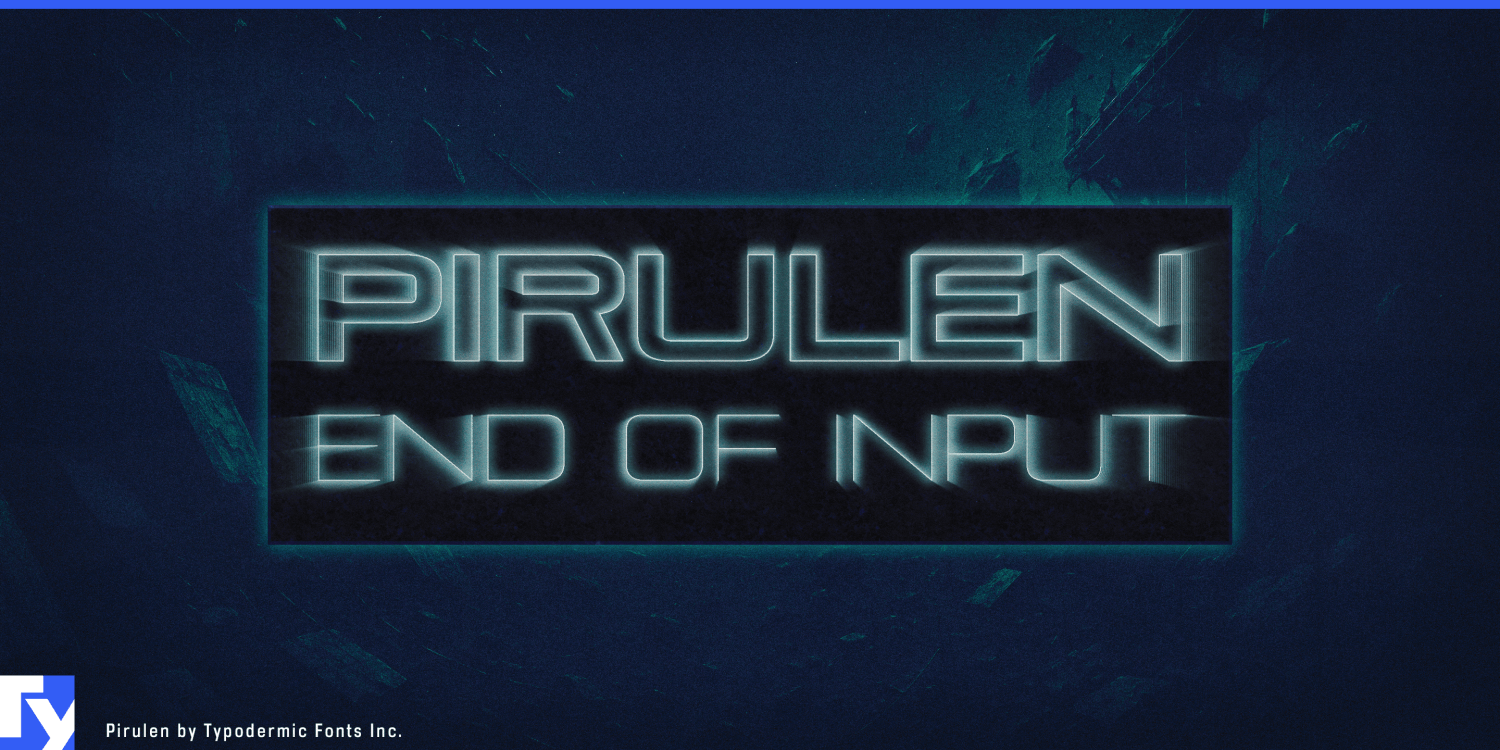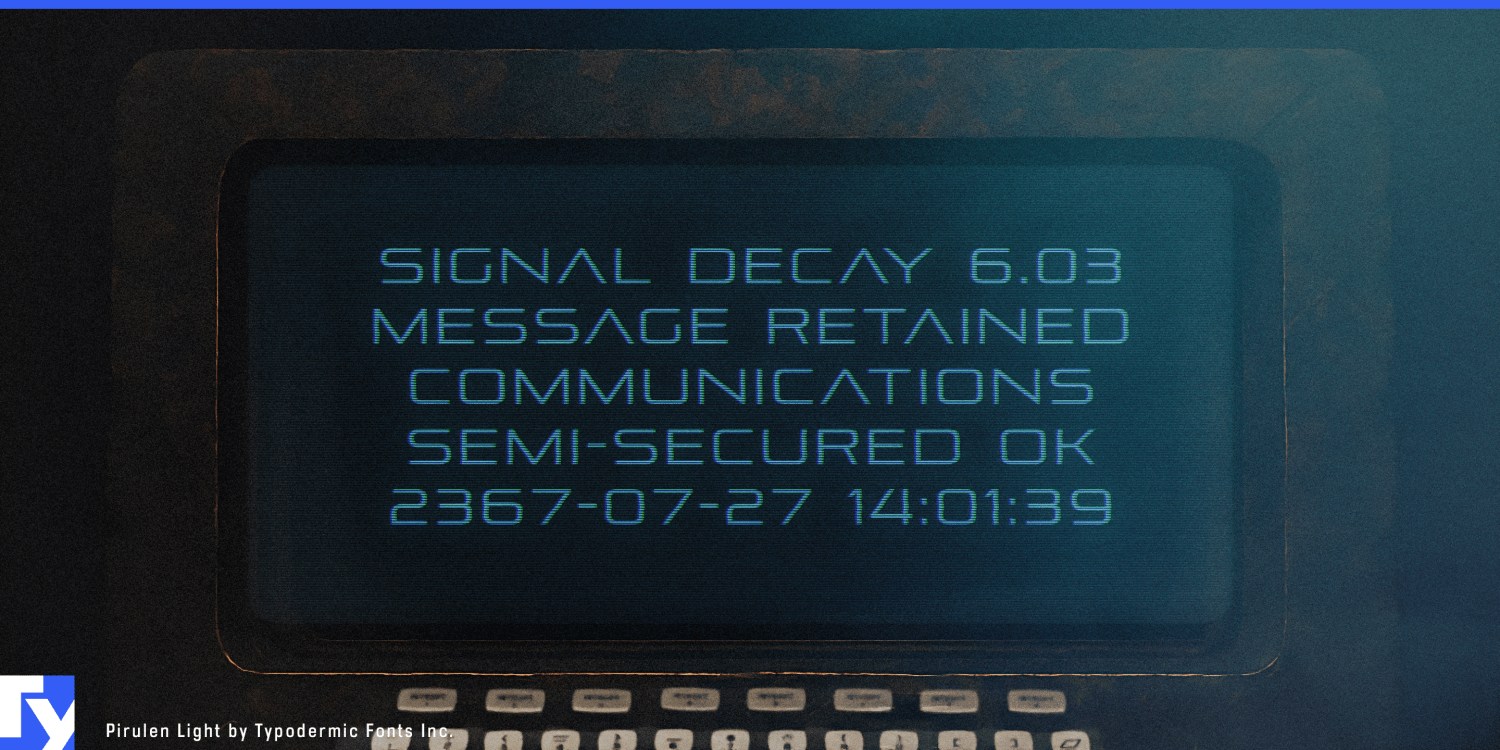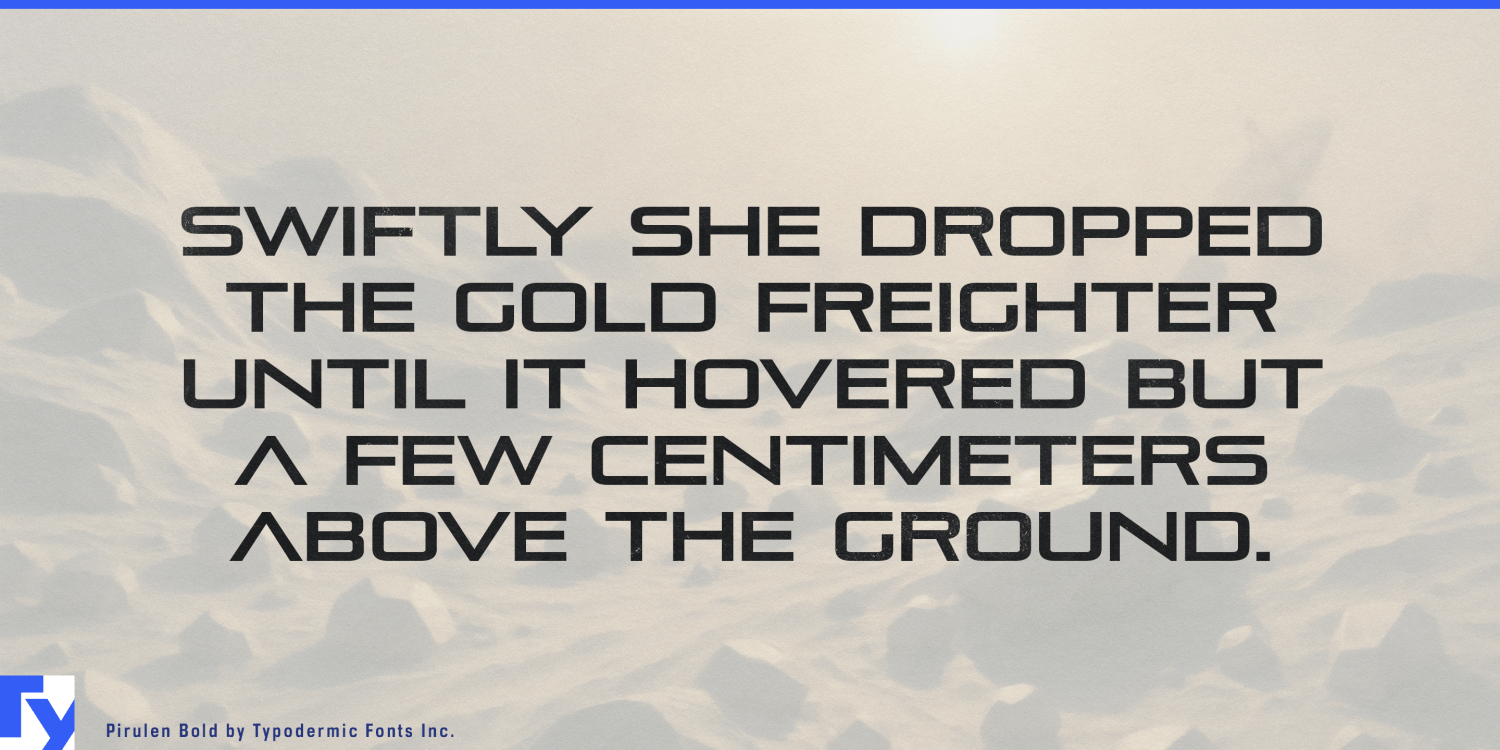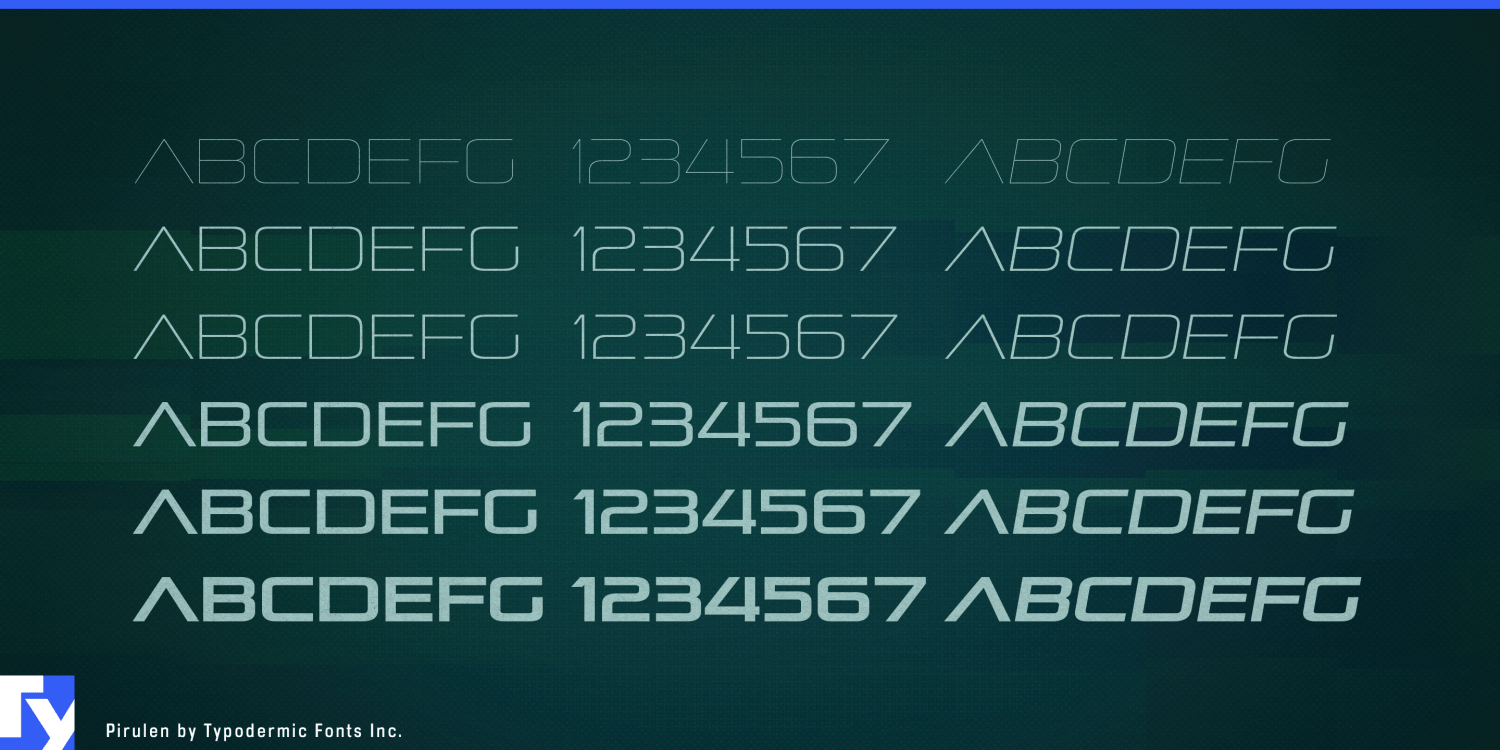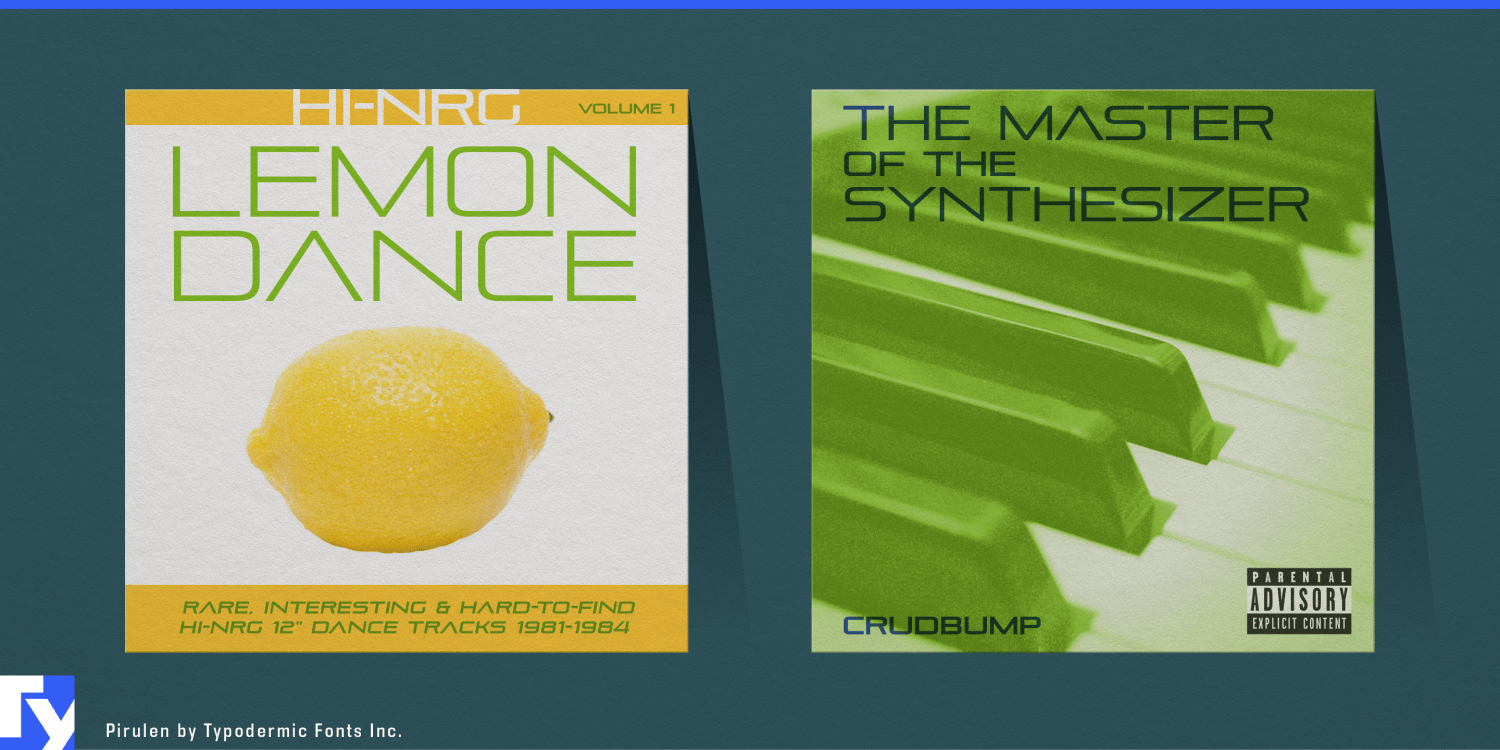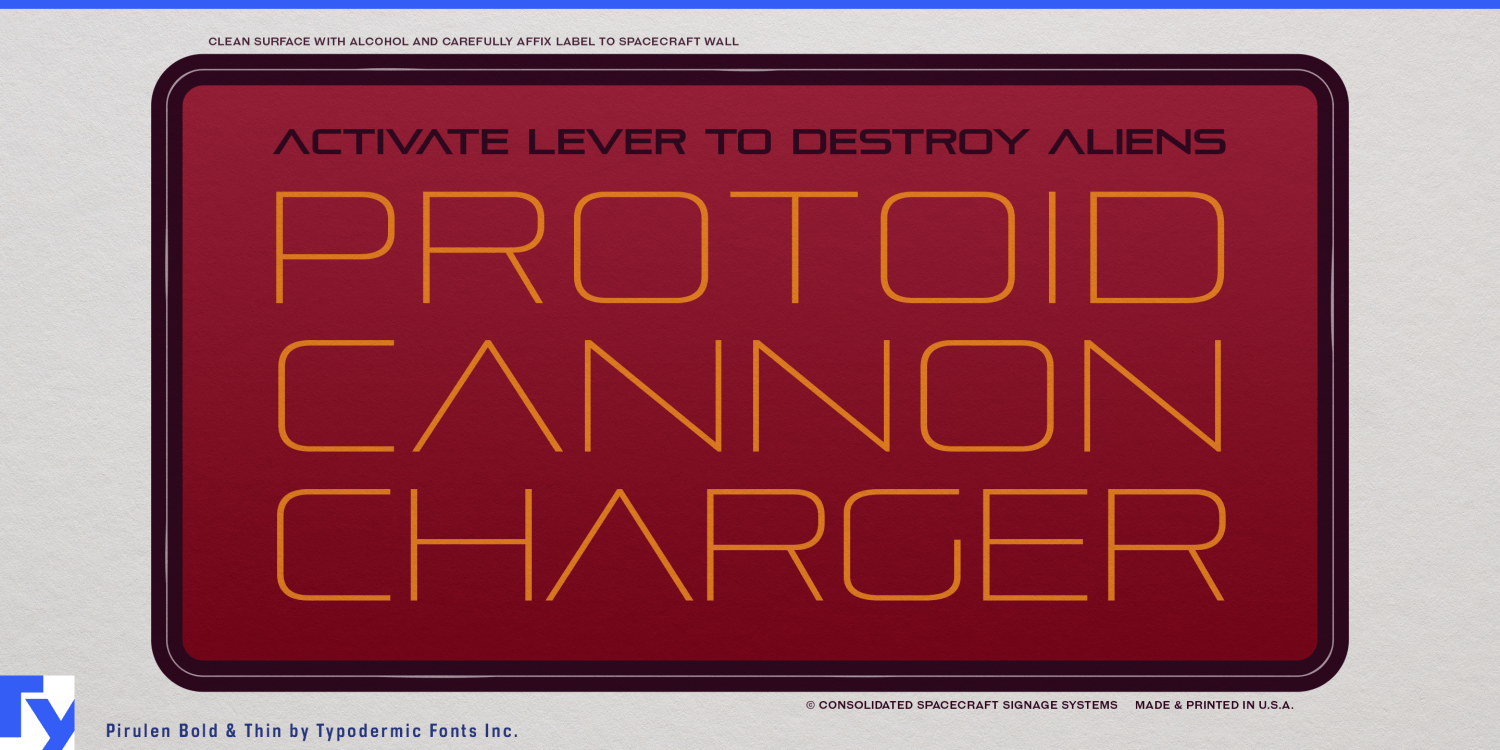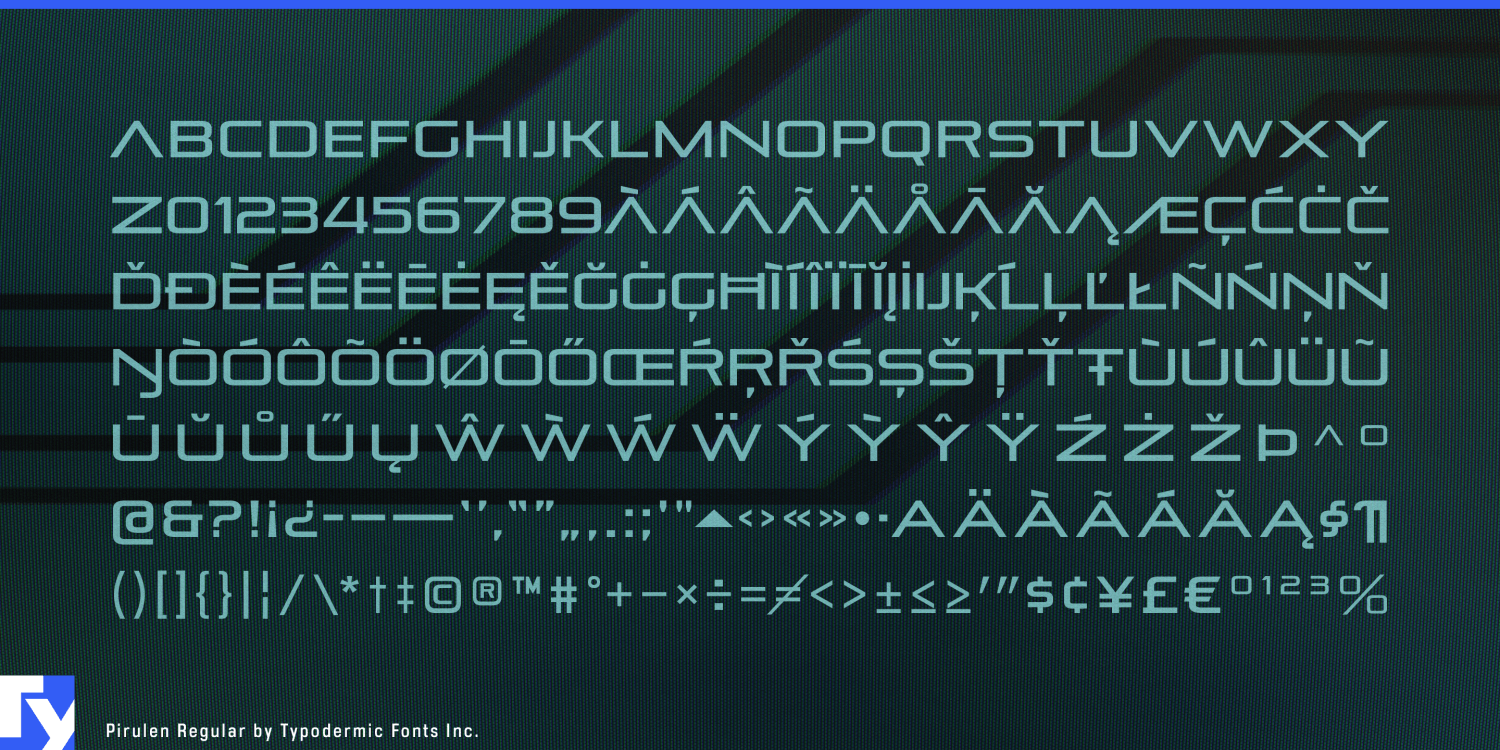
Pirulen
Aerospace, autonomous and robotic companies often already have a neutral corporate sans for reports, websites, specifications and interface text. The harder problem comes when the machine itself needs a name. Set a platform name in the corporate face and it can look like another heading; push too far into decorative sci-fi lettering and serious hardware starts to look fictional. Pirulen occupies the useful space between those extremes.
Its broad all-cap geometry gives short names and model designations enough visual mass to behave like part of the product. The forms are clearly technological, but simple enough to repeat across whole families of machines, generations and variants. Alternate A forms let the designer control how strongly the identity leans into science fiction.
Uncrewed aircraft are a natural fit. Long-range UAVs, reconnaissance platforms, autonomous cargo aircraft and related air, ground and maritime systems need model names and variant designations that can move from fuselage or wing markings to trade-show walls, launch films and product presentations.
Commercial spacecraft present a similar naming problem. Satellite buses, orbital-transfer vehicles, servicing spacecraft, lunar rovers and landers are increasingly presented as identifiable platforms rather than anonymous engineering. Pirulen can give those names a stronger presence across mission graphics, launch-webcast titles, aerospace exhibitions and customer presentations while technical documentation remains in a quieter companion face.
Counter-drone systems, electronic-warfare platforms and advanced sensors can use Pirulen to separate memorable system names from the dense diagrams and specifications around them. Hazardous-environment robotics offers a civilian extension through mining robots, pipe-inspection crawlers, remote-maintenance machines and infrastructure inspection platforms.
Autonomous maritime equipment is particularly well suited to Pirulen’s broad proportions. Survey craft, oceanographic vehicles, patrol systems and remote inspection vessels provide long hulls where platform names can become part of the machine itself.
Pirulen also works for fictional hardware when the goal is credible industrial world-building. Spaceflight simulators, mech games, near-future strategy titles and hard-science-fiction productions often need spacecraft classes, drones, rover models and autonomous vehicles that look as though they came from an actual engineering company.
Pirulen is not the typography that explains the machine. It is the typography that gives the machine a name.